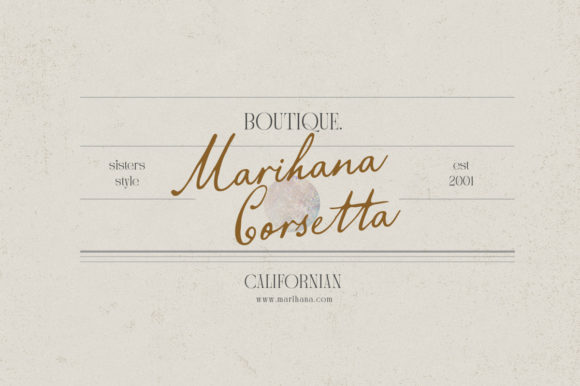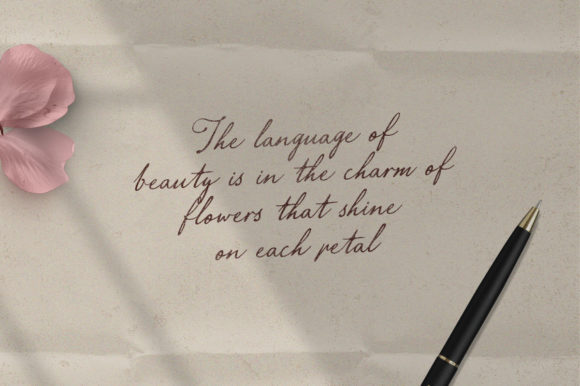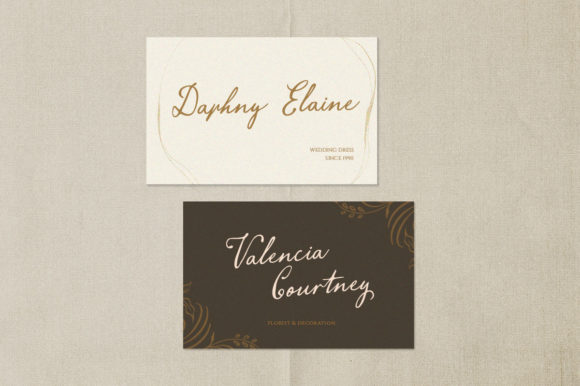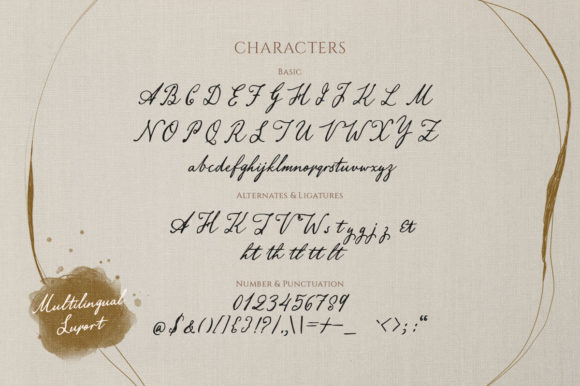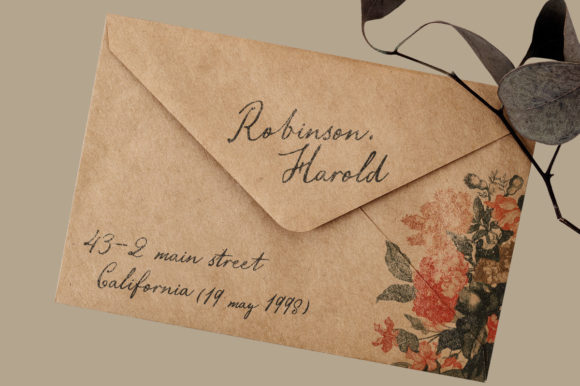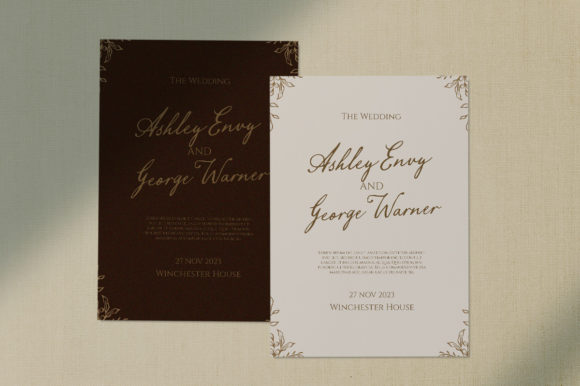
Aviola Memories Font: A Timeless Vintage Script for Your Creative Projects
In the world of typography, a font can make all the difference in bringing a design to life. For designers, crafters, and creative enthusiasts, finding the perfect font that captures the essence of a project can be a daunting task. However, if you’re looking for a beautiful and vintage styled script font that exudes elegance and sophistication, look no further than Aviola Memories Font.
What is Aviola Memories Font?
Aviola Memories is a stunning script font that is based on authentic handwriting with natural signature styles. This gorgeous font is perfectly designed to add a touch of vintage charm to a wide range of creative projects, from logos and invitations to labels, magazines, books, greeting cards, wedding cards, packaging, fashion, and more.
Key Features of Aviola Memories Font
• Vintage Style: Aviola Memories boasts a beautiful, vintage-inspired design that is sure to add a touch of nostalgia and elegance to any project.
• Authentic Handwriting: This font is based on authentic handwriting with natural signature styles, giving it a unique and personal touch.
• Script Font: Aviola Memories is a script font that is perfect for adding a touch of sophistication and glamour to any design.
• Multipurpose: This font is versatile and can be used for a wide range of creative projects, from logos and branding to invitations, packaging, and more.
Aviola Memories Font is an excellent choice for designers and crafters who are looking to add a touch of vintage charm to their projects. Whether you’re creating custom invitations, designing a logo, or crafting a beautiful wedding card, this font is sure to impress. Its elegant and sophisticated design makes it perfect for a wide range of applications, including:
• Logos and Branding: Use Aviola Memories to create a unique and memorable logo that captures the essence of your brand.
• Invitations: Add a touch of vintage charm to your invitations and save-the-date cards with this beautiful script font.
• Wedding Cards: Make your wedding cards and stationery truly special with Aviola Memories.
• Packaging: Use this font to add a touch of elegance to your product packaging and labels.
• Fashion: Aviola Memories is perfect for fashion designers who want to add a touch of sophistication to their designs.
Why Choose Aviola Memories Font?
With so many fonts available, why choose Aviola Memories? Here are just a few reasons why this font stands out:
• Unique Design: Aviola Memories boasts a unique and beautiful design that is sure to make your projects stand out.
• Elegant and Sophisticated: This font exudes elegance and sophistication, making it perfect for high-end designs.
• Multipurpose: Aviola Memories can be used for a wide range of creative projects, making it a versatile addition to your font collection.
In conclusion, Aviola Memories Font is a beautiful and vintage styled script font that is perfect for designers, crafters, and creative enthusiasts. With its unique design, elegant and sophisticated style, and multipurpose applications, this font is sure to become a staple in your font collection. Whether you’re creating logos, invitations, wedding cards, or packaging, Aviola Memories is the perfect choice for adding a touch of vintage charm to your projects.